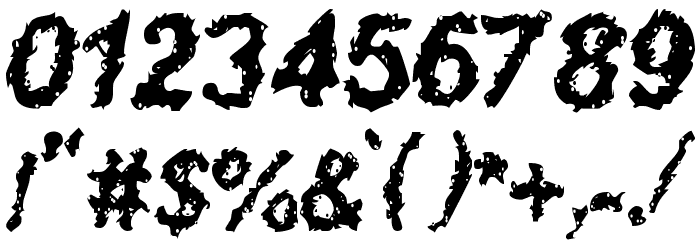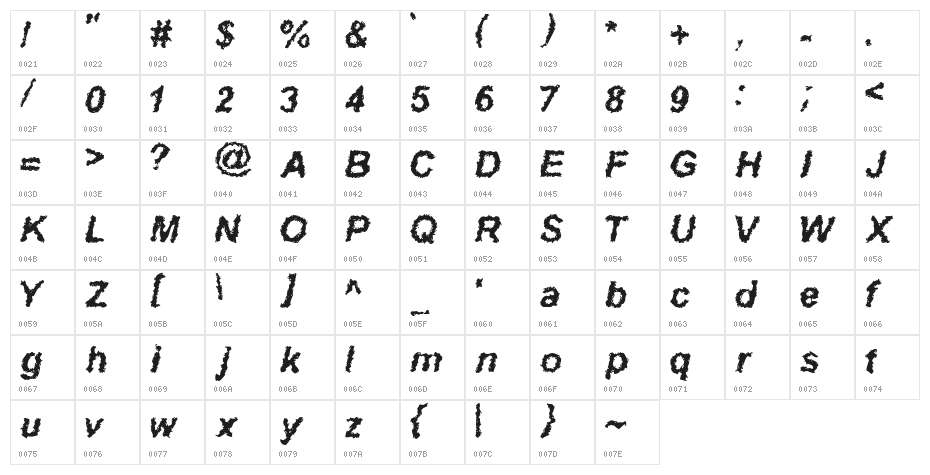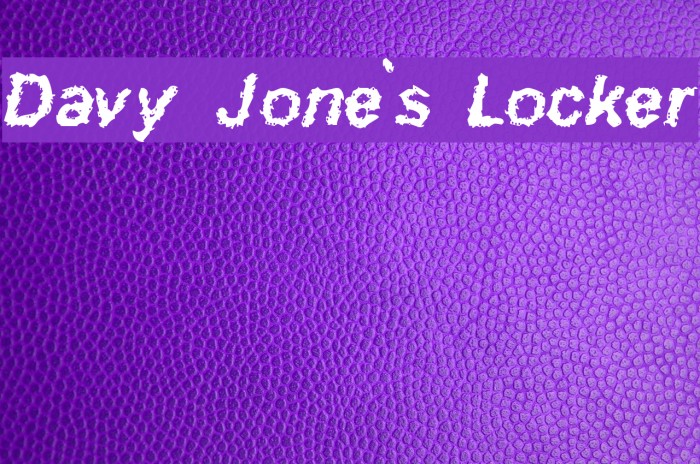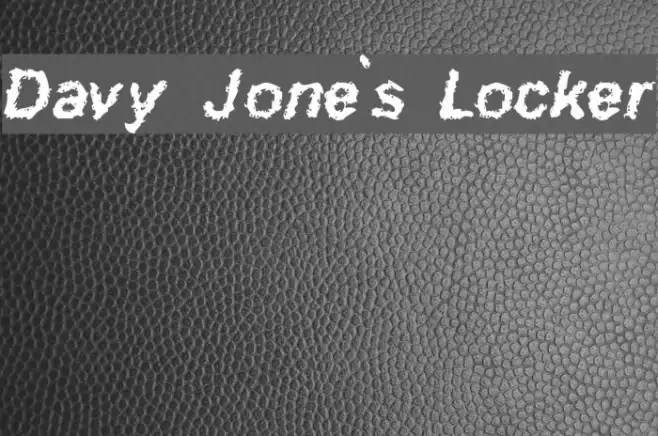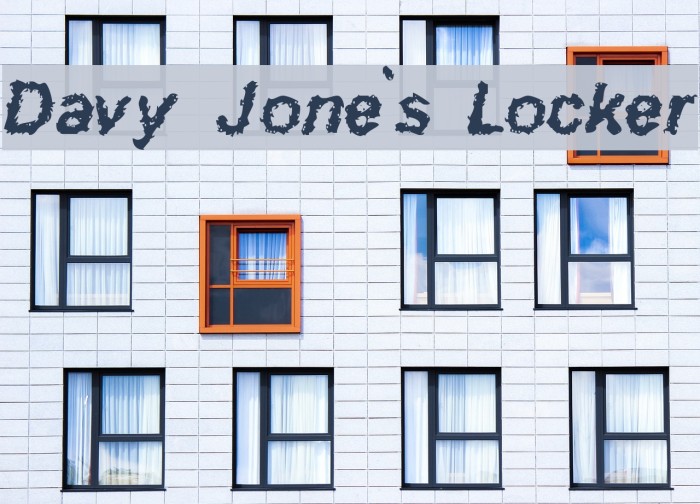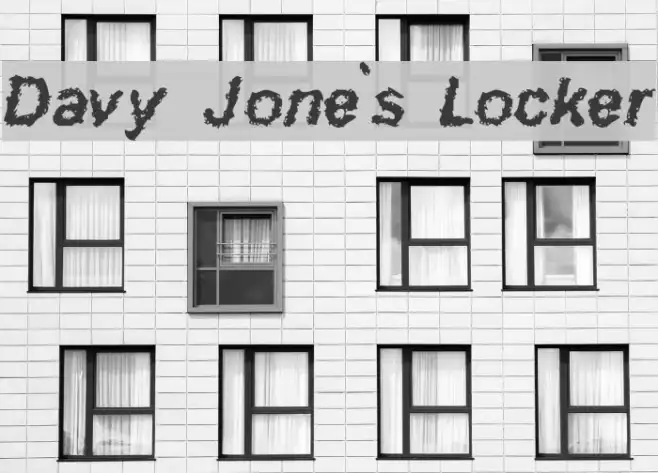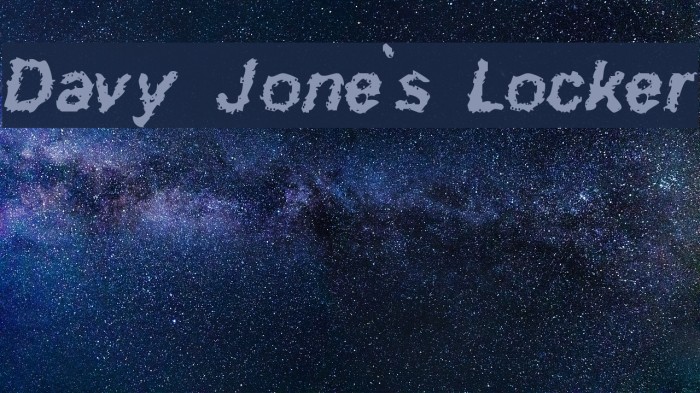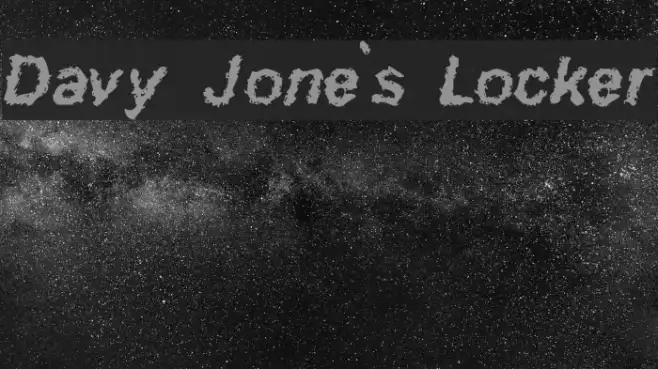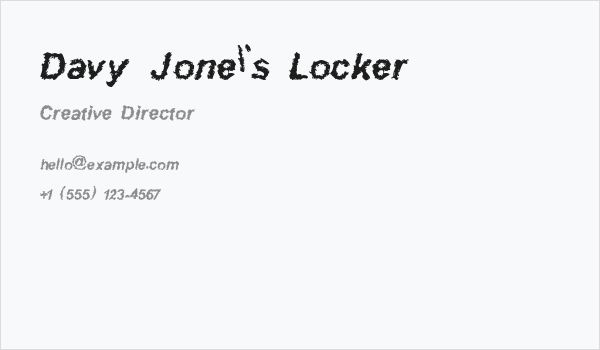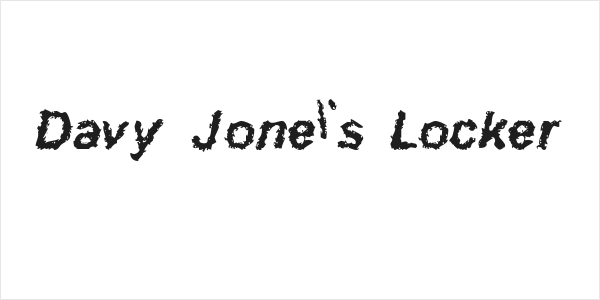
Davy Jone's Locker Font
Davy Jone's Locker Description
This font exudes a rugged, distressed aesthetic, reminiscent of weathered textures and maritime themes. The characters are bold and heavily textured, giving an impression of erosion or decay, which adds a unique, edgy flair. The uppercase and lowercase letters maintain a consistent style, with jagged edges and irregular shapes that suggest a hand-crafted or organic feel. Numbers and special characters follow the same design principles, ensuring a cohesive look across all glyphs. This font's distinctive appearance makes it ideal for projects that require a bold statement or a touch of the unconventional.
| Proposed Projects | Ideal for pirate-themed events, horror movie posters, adventure games, or any project needing a bold, unconventional typeface. |